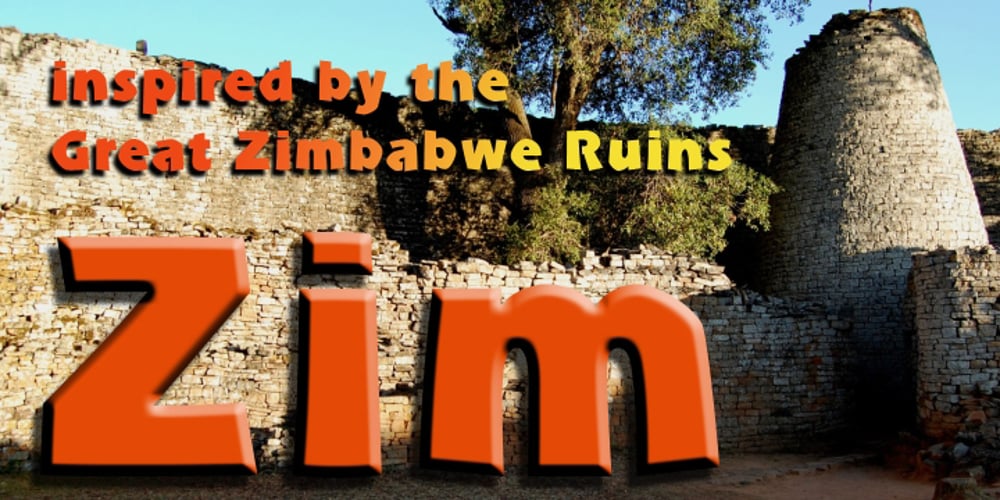
Zim Font Family was designed by Anton Scholtz, Merle Scholtz and published by Scholtz Fonts. Zim contains 1 styles and family package options. Zim is a bold, earthy font, named for the Great Zimbambwe ruins (a World Heritage site). Its solid silhouette represents the timelessness of this ancient structure. The font is very readable, and its bold, rugged shape make it ideal for display purposes, for posters and headlines. Fully professional, it contains a complete set of 255 characters — Upper and Lower case, all numerals, punctuation, symbols and accented characters. It is suitable for layout work in all major European languages — Spanish, Portuguese, German, French, Swedish and Italian (to name a few). The characters are spaced for readability and have been carefully kerned.